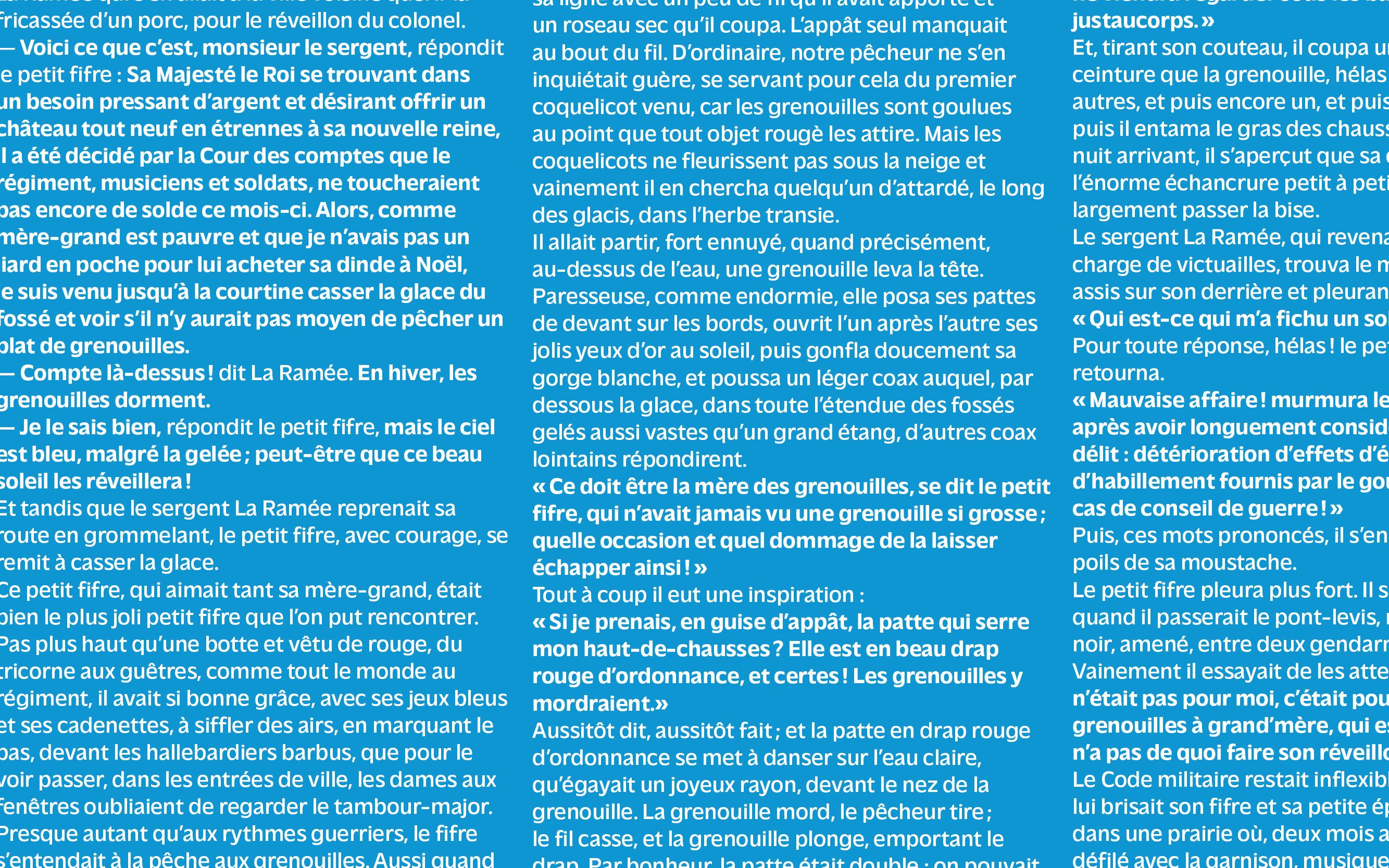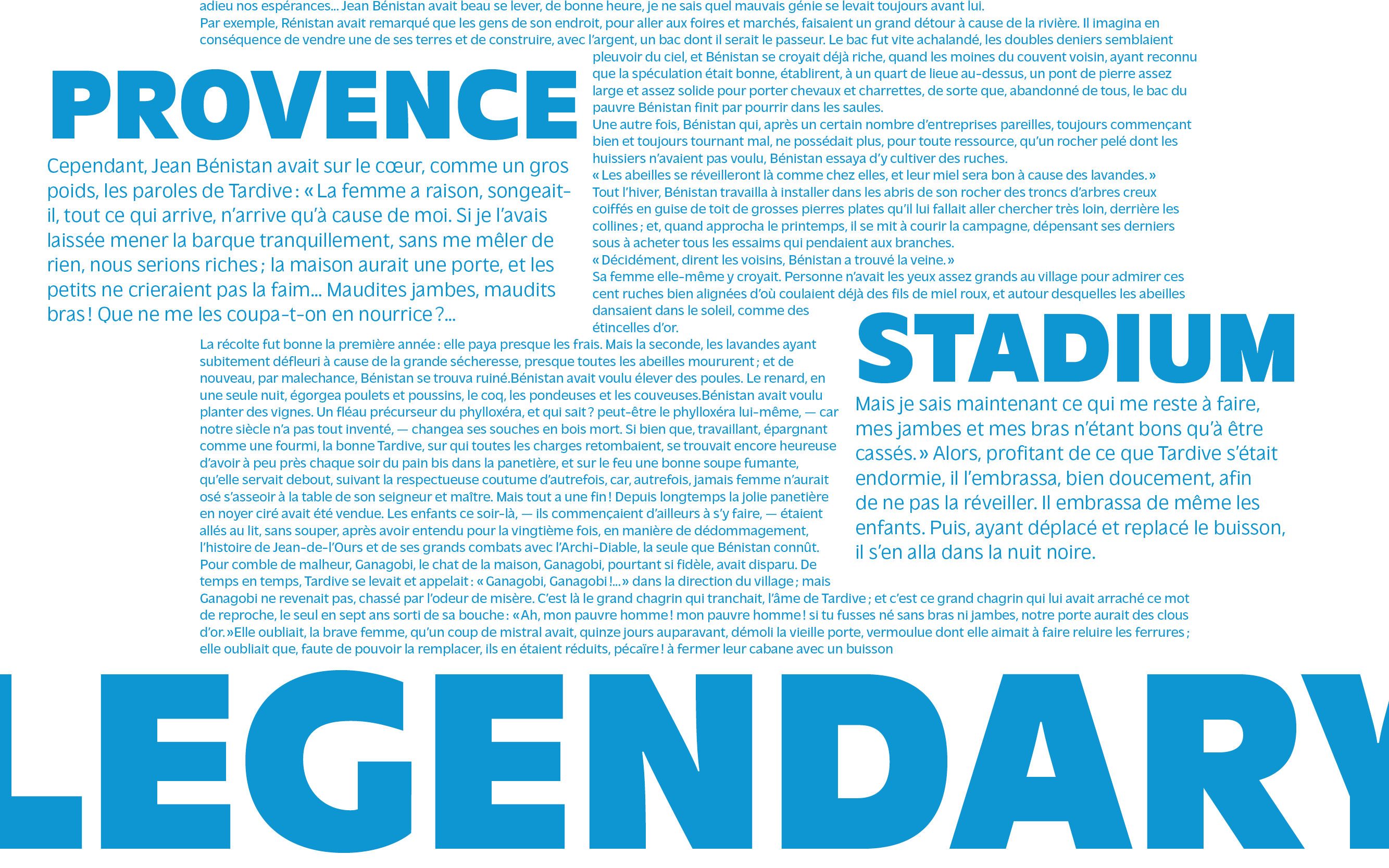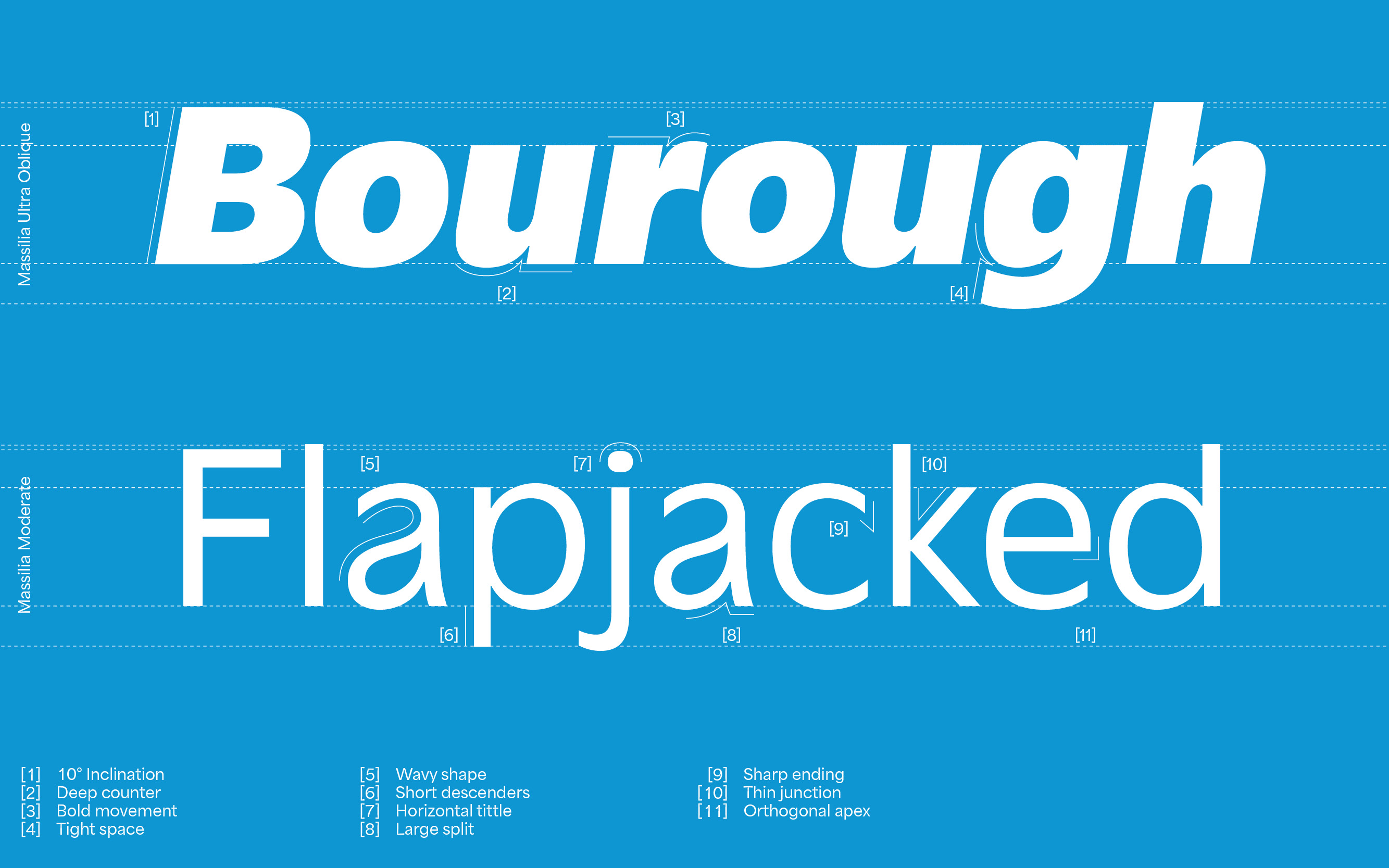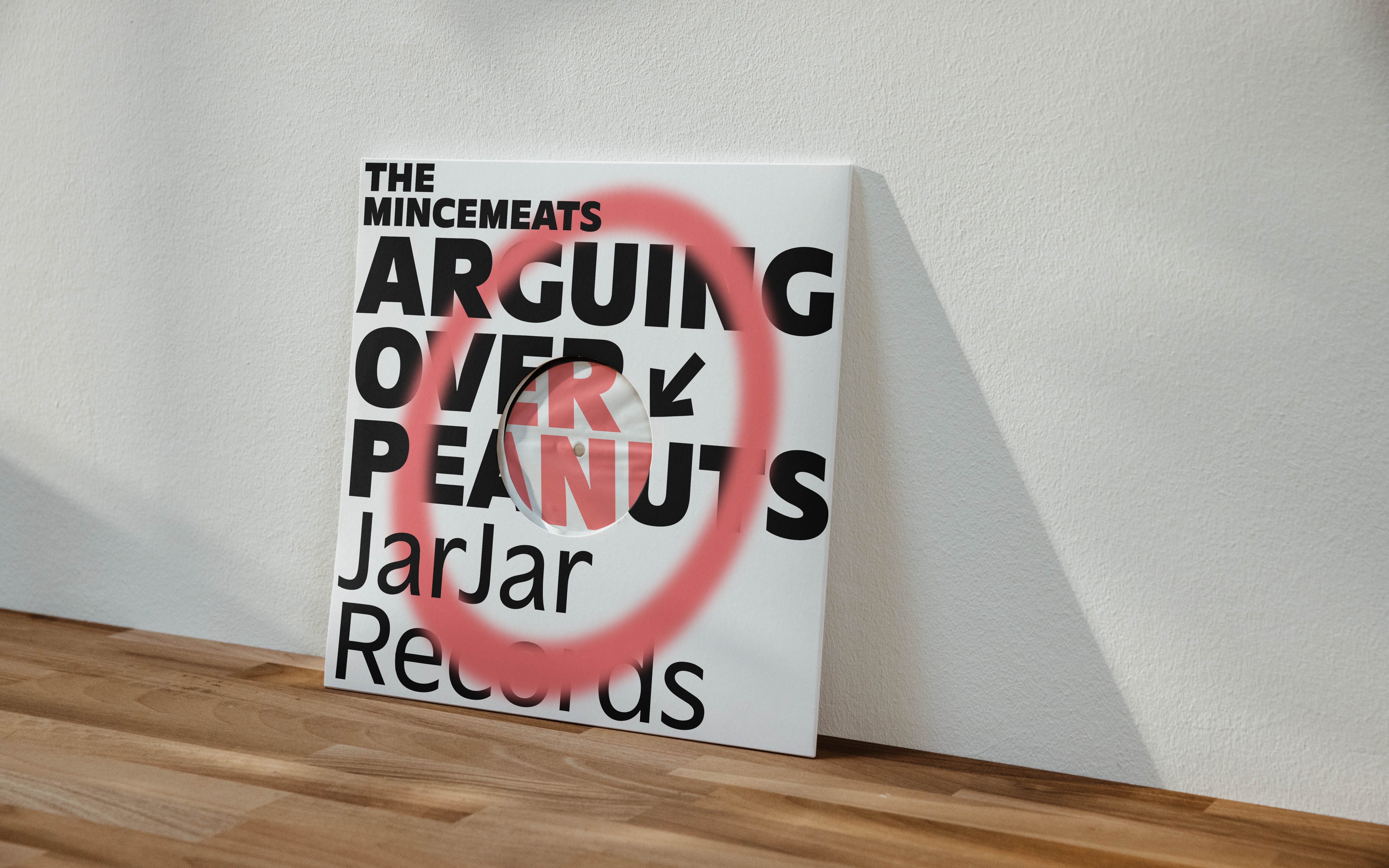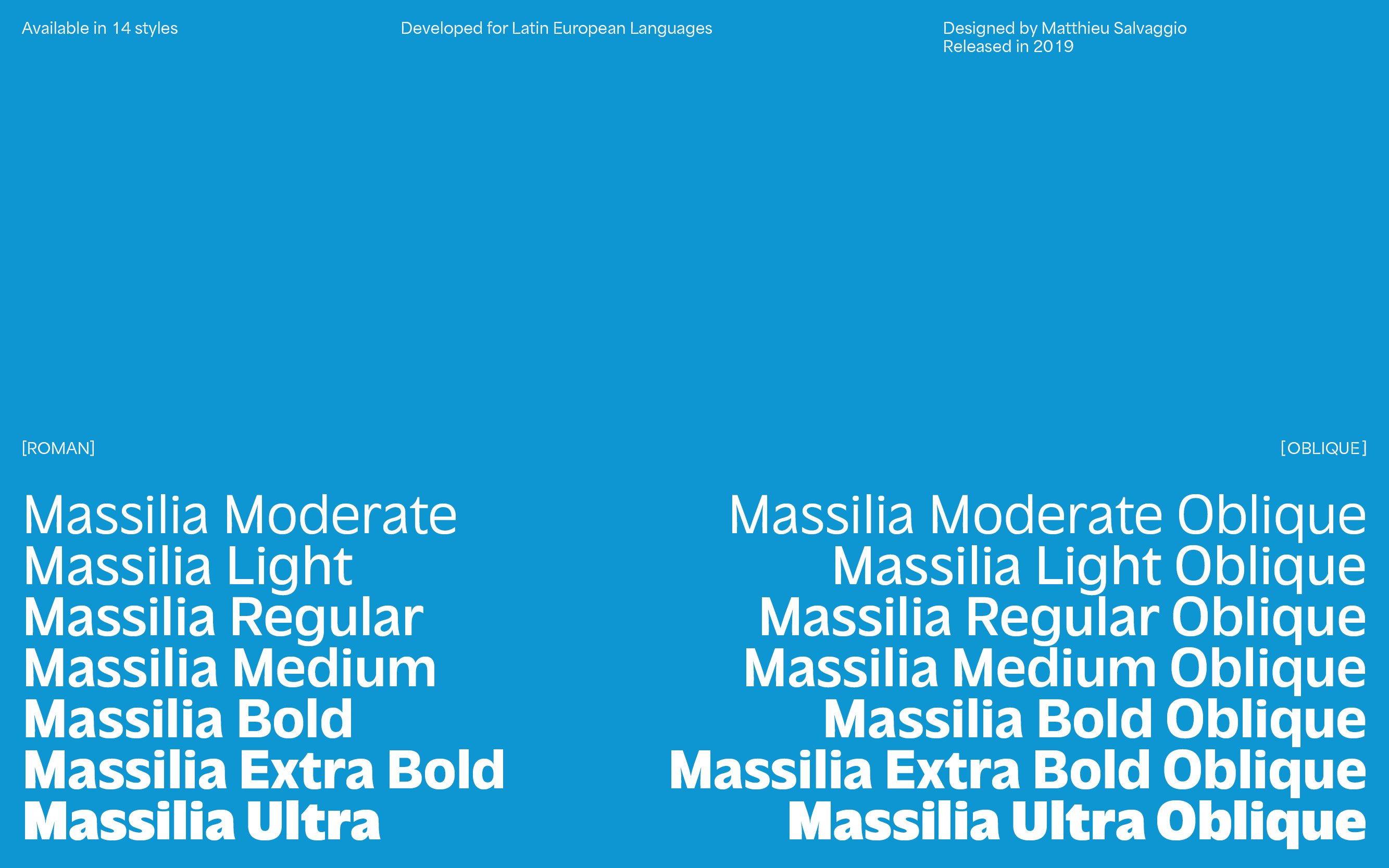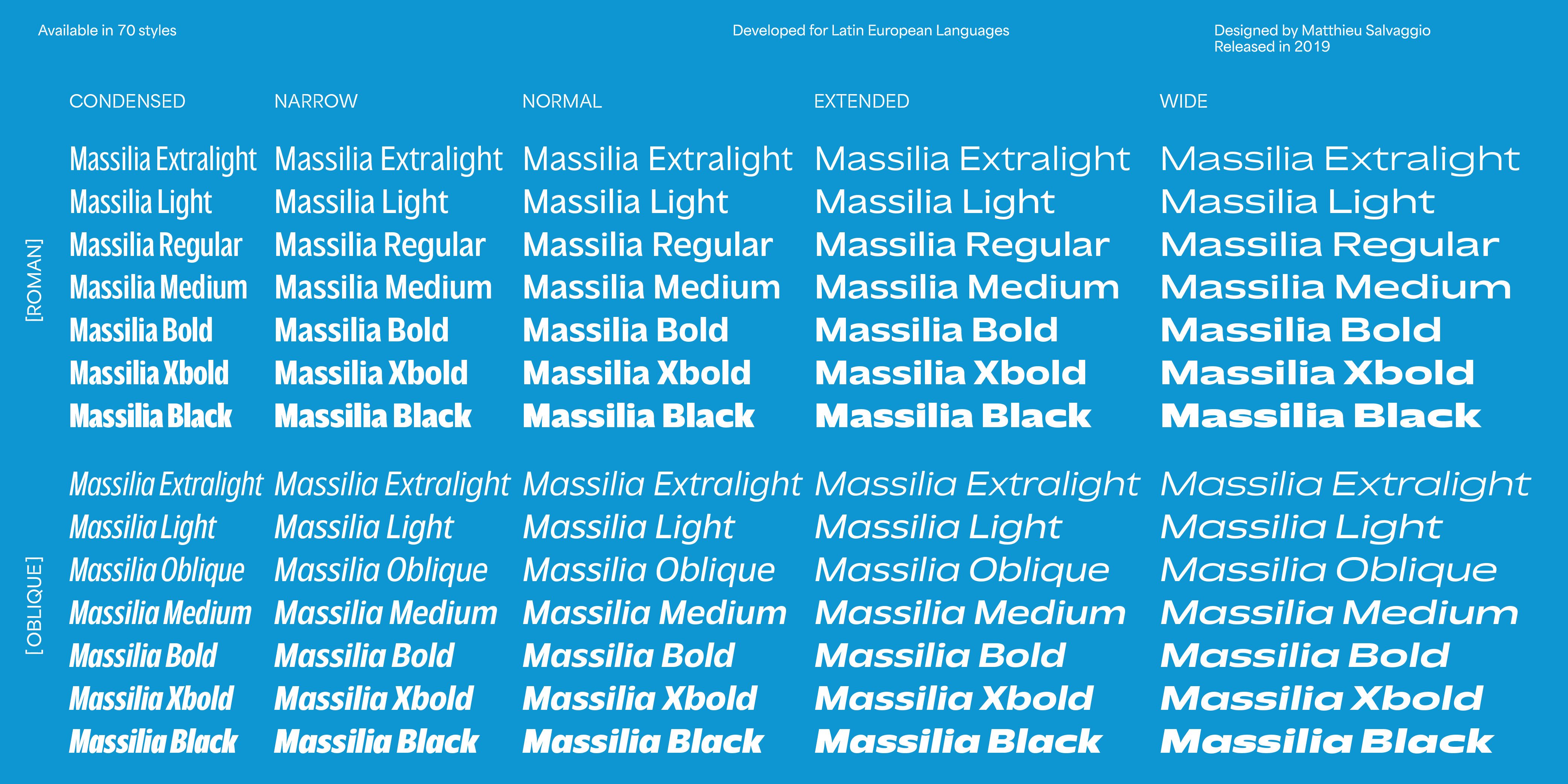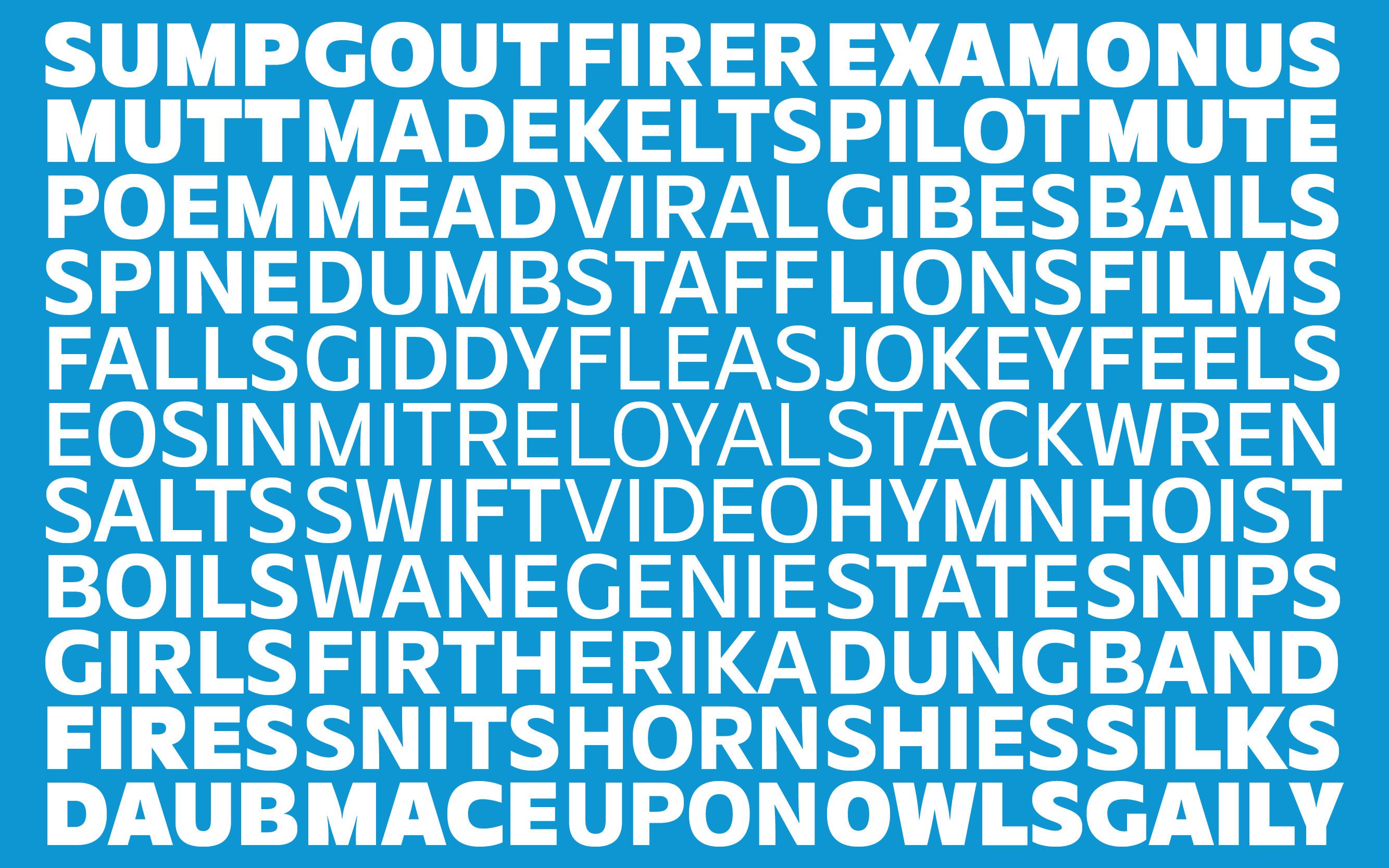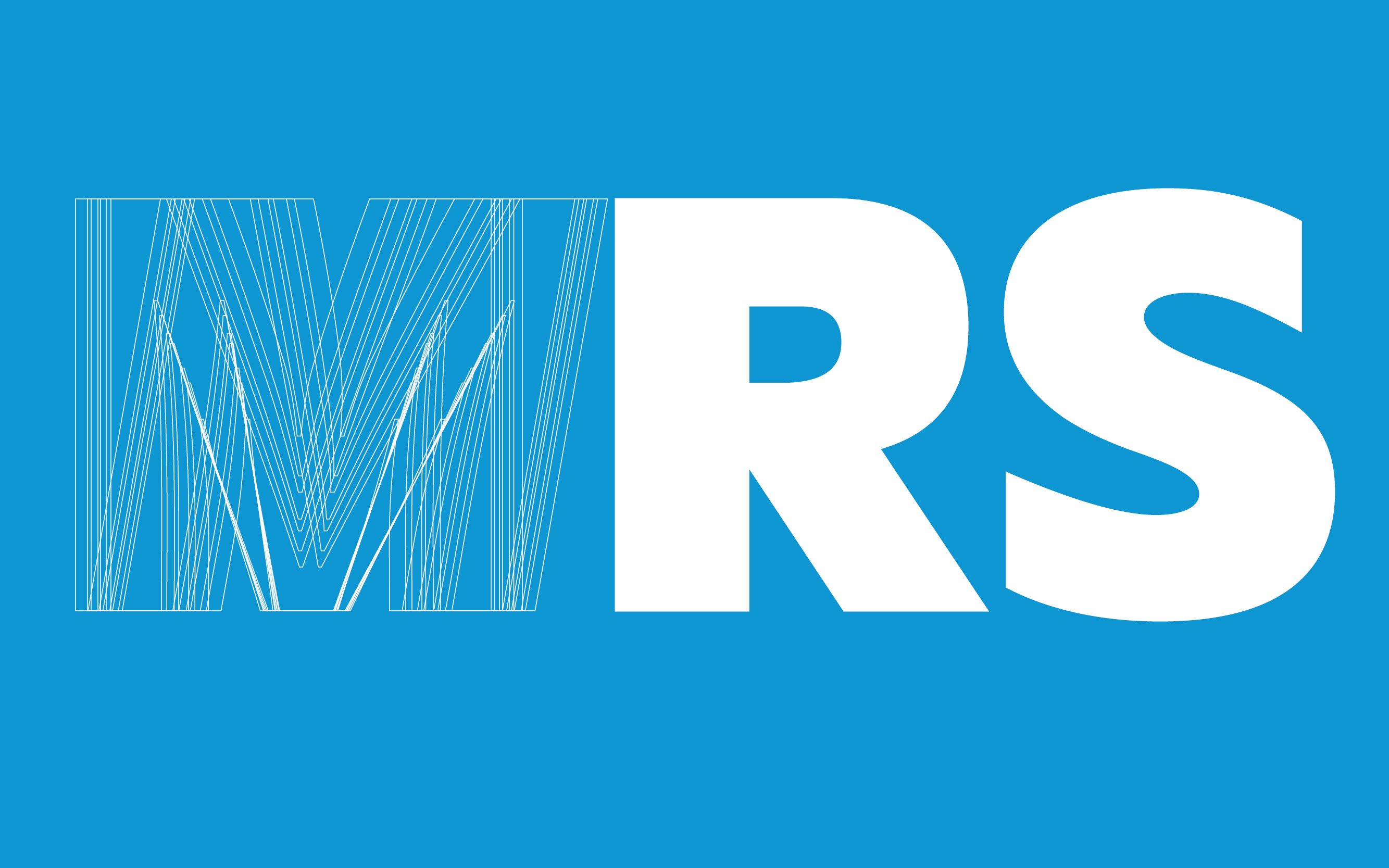
Massilia
Updated in 2025 to contain Condensed, Narrow, Normal, Extended and Wide variations.
Massilia is a tribute to Marseille, echoing the softness and the balance of the sunny south of France. This font family is inspired by both Roger Excoffon’s famous work and the the city itself. Balancing between brush-like features and geometric endings. Massilia bring a perfect balance to the rhythmic of a text layout. While allowing one to be able to harvest the full strength of its glyphs’ anatomy when being displayed in larger sizes with the bolder versions of the typeface, it is surprisingly soft and delicate when used in lighter weights, smaller sizes, and long text layouts.